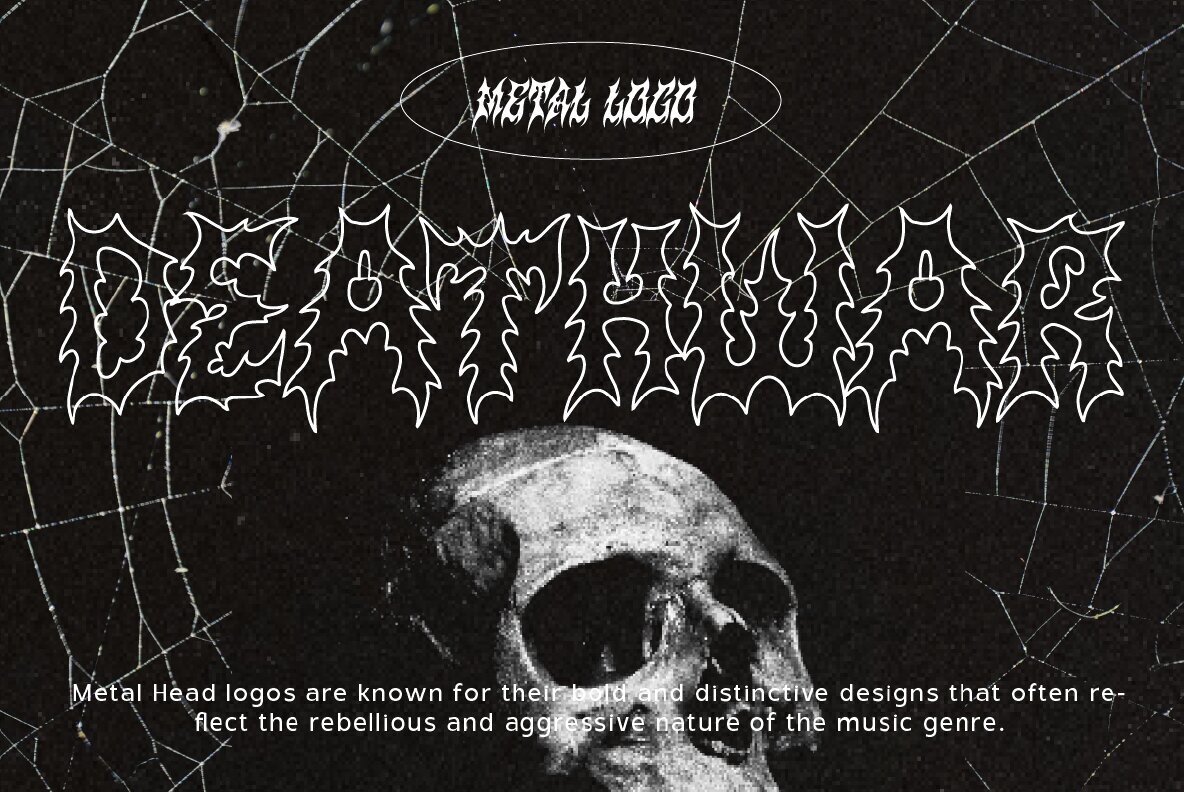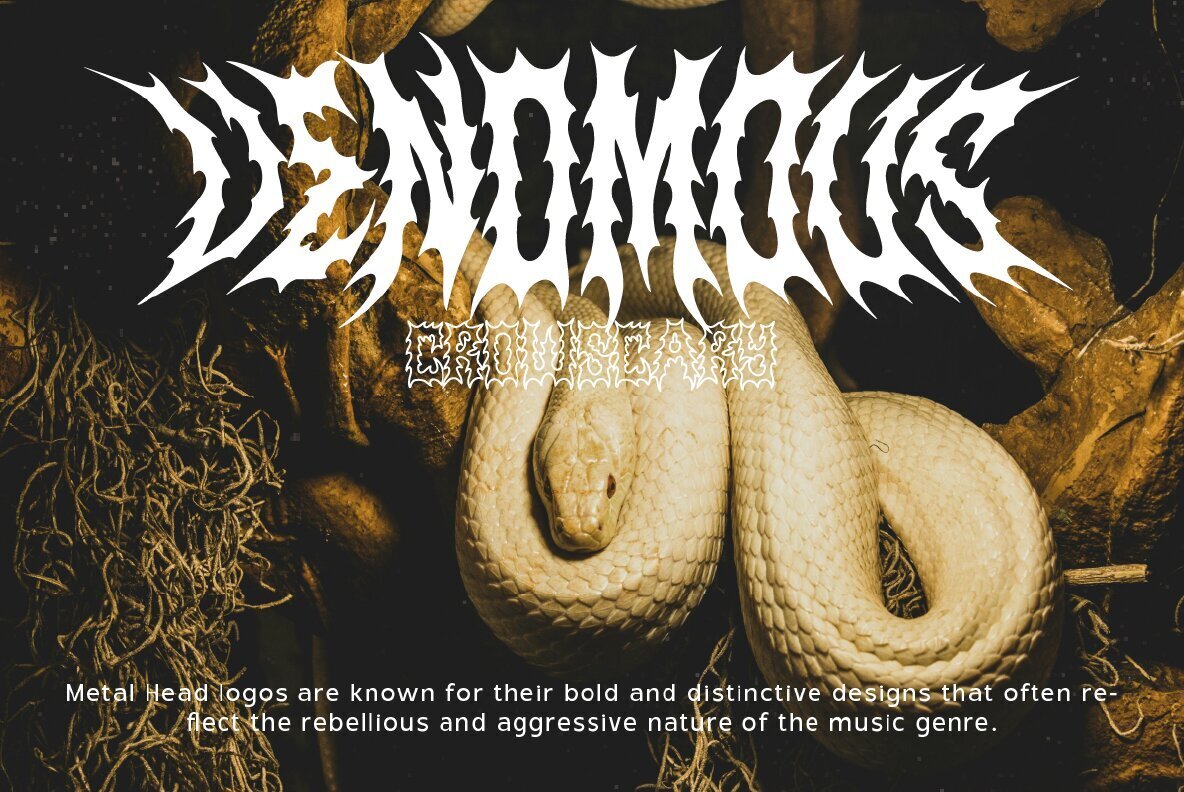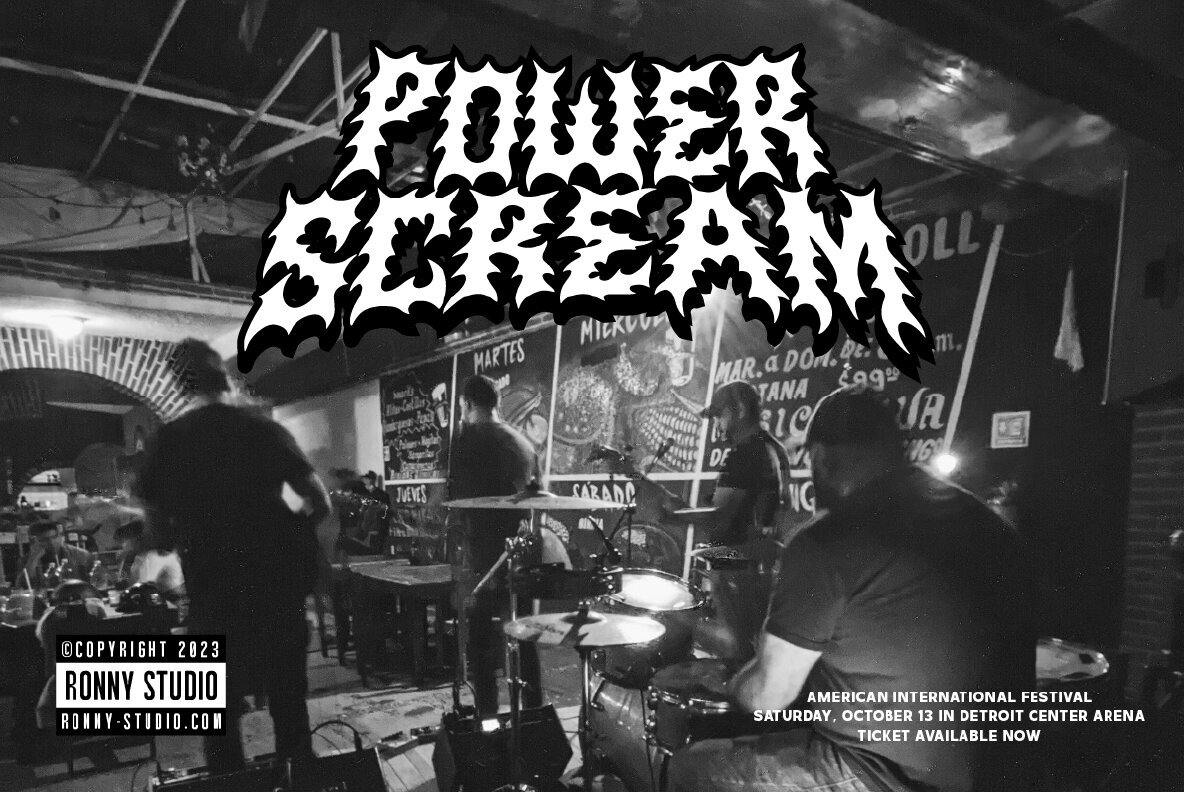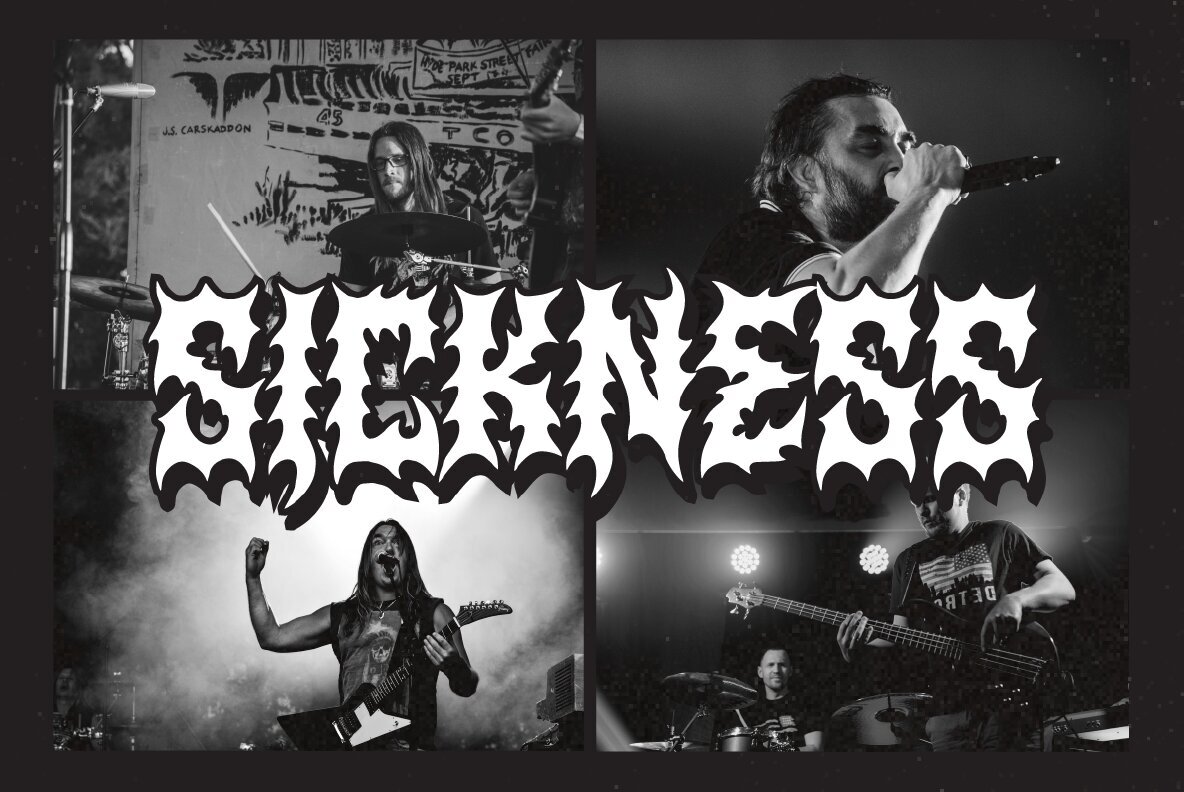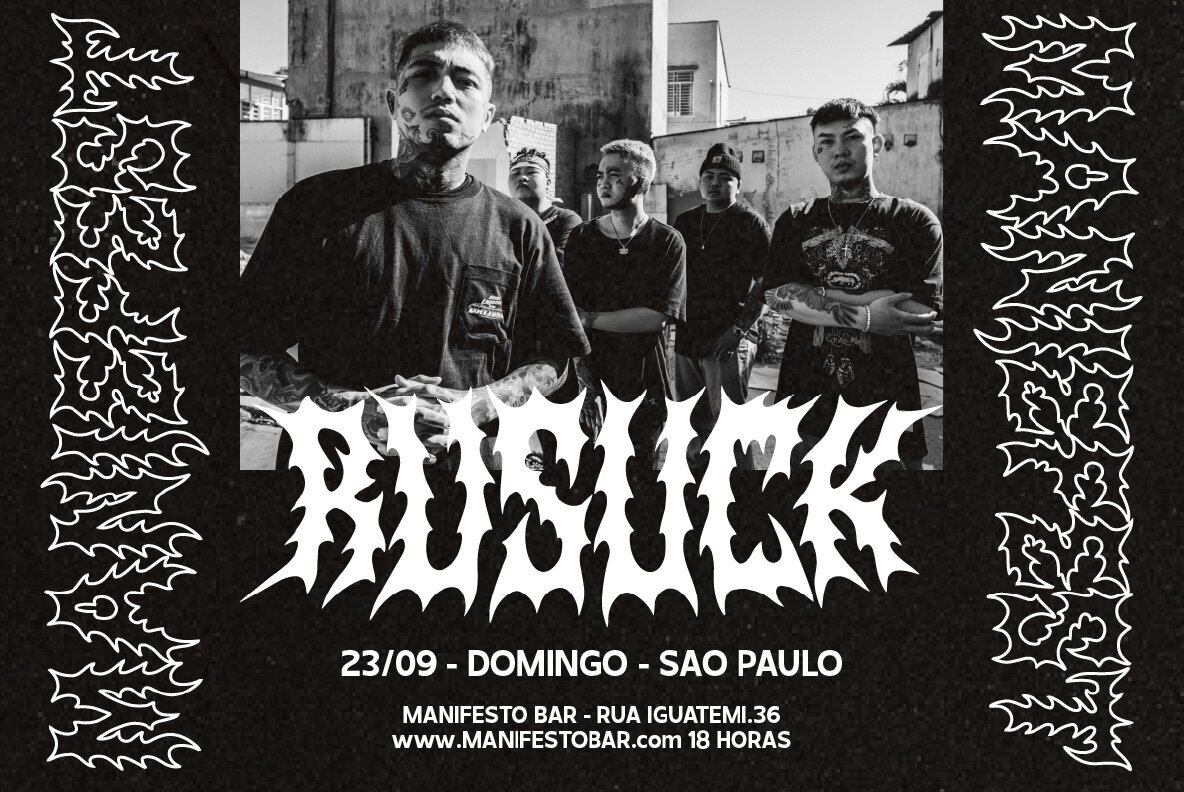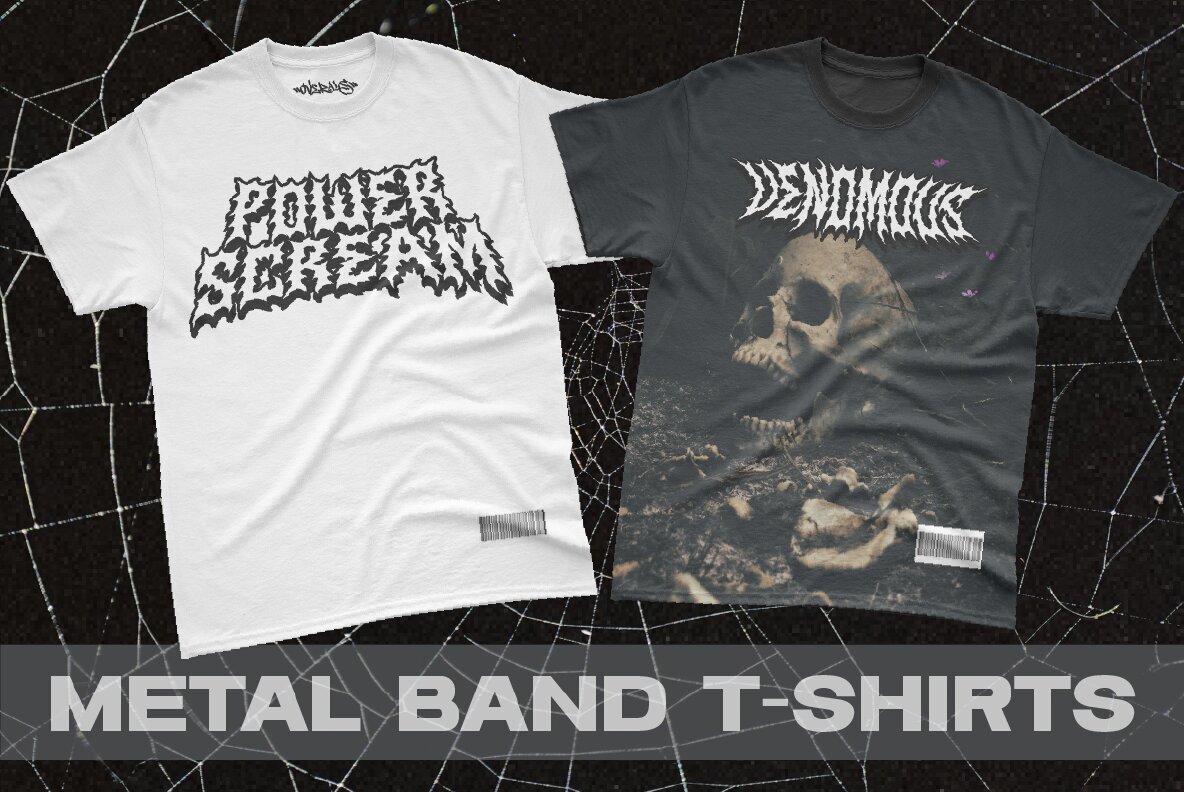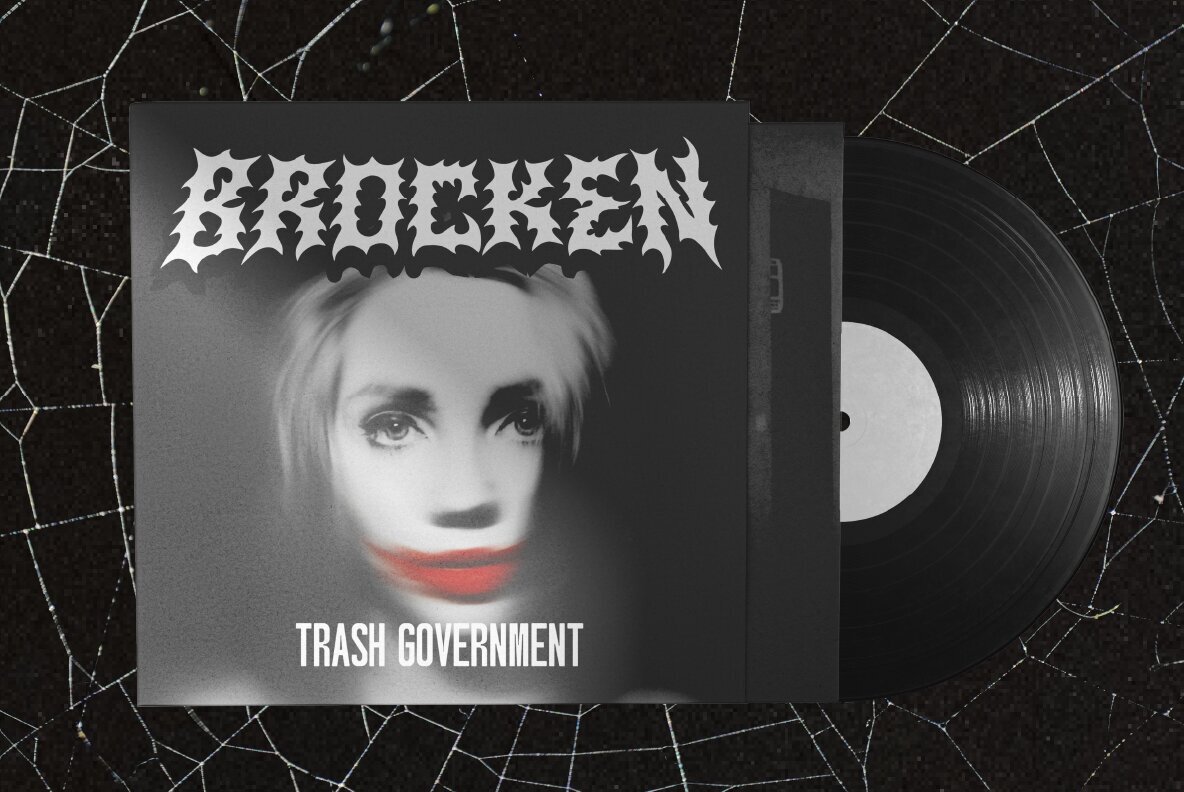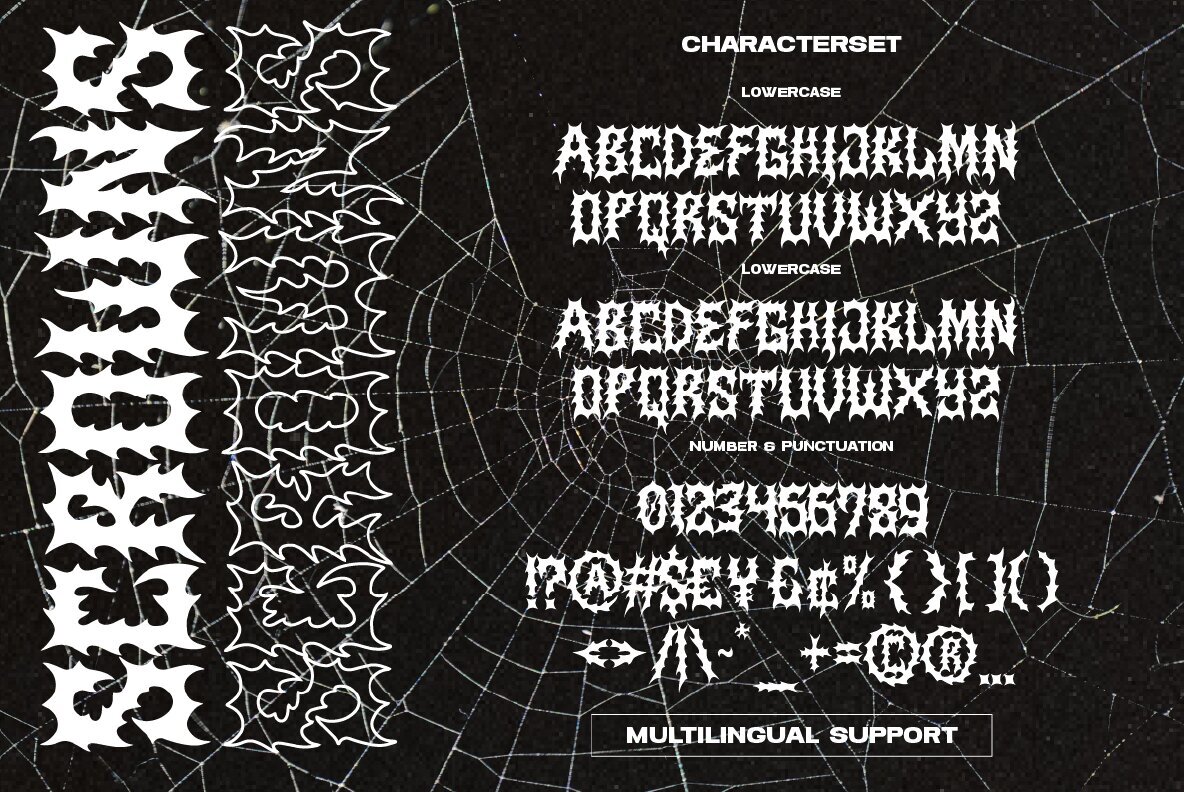
Scrowns Font
Scrowns
This bold and spiky decorative blackletter font is perfect for projects that need a dark and intense atmosphere. Ideal for horror-themed designs, gothic posters, edgy music album covers, and any work that requires a bold statement. Its heavy and ornate style ensures that your text stands out with an extreme and eye-catching appearance.